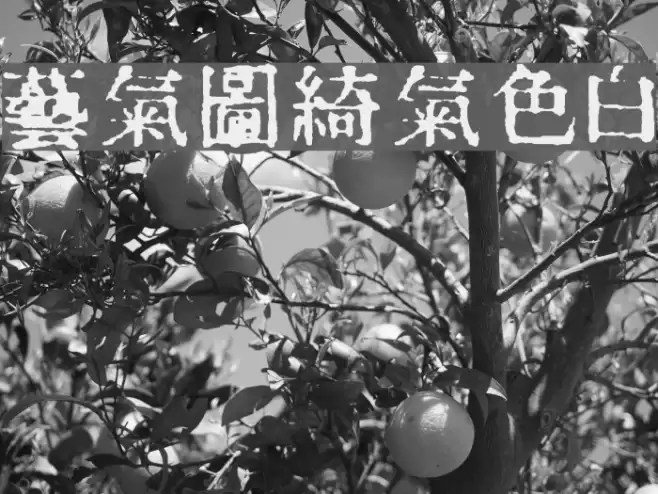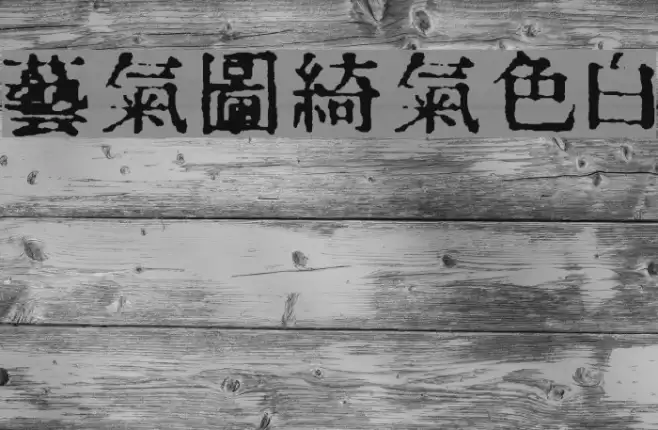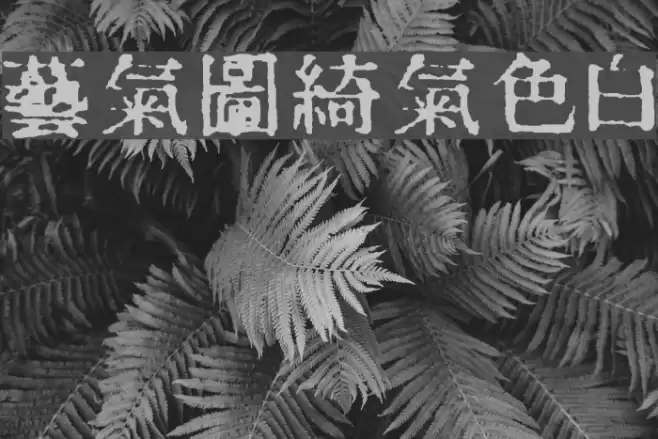
InKanji Font
InKanji Description
This font features a traditional and artistic style, reminiscent of classic Japanese calligraphy. The characters are bold and expressive, with a brush-like texture that suggests hand-drawn strokes. Each character is distinct, with varying thickness that adds depth and dimension. The font maintains a balance between elegance and readability, making it suitable for both artistic and formal applications. The numerals are clear and consistent with the overall style, providing a cohesive look. This font captures the essence of cultural heritage while offering a modern twist.
A traditional, brush-style font with bold, expressive characters from Uncategorized fonts.
- Proposed Projects: Ideal for cultural projects, artistic designs, branding, and formal invitations.
- Overall Style: Classic
- Use Case: Logos, Artistic designs, Cultural projects